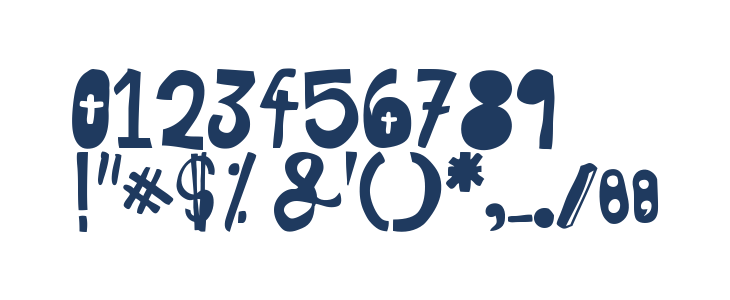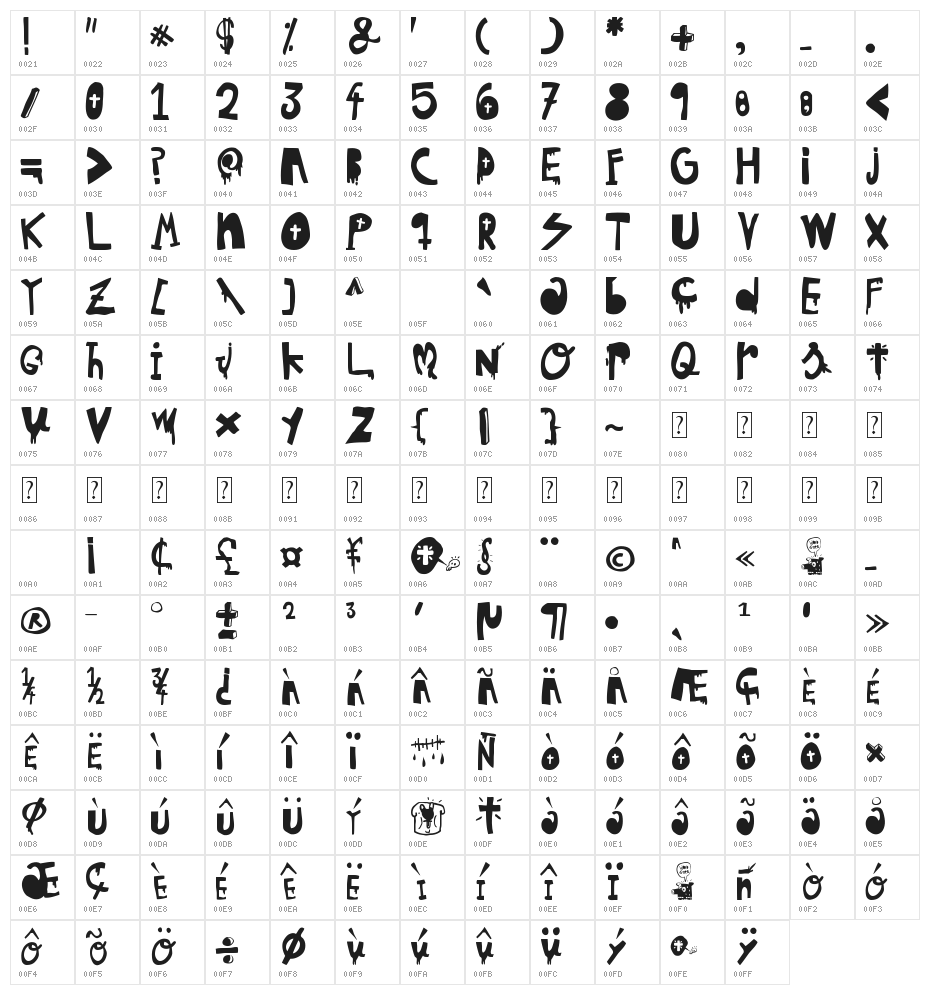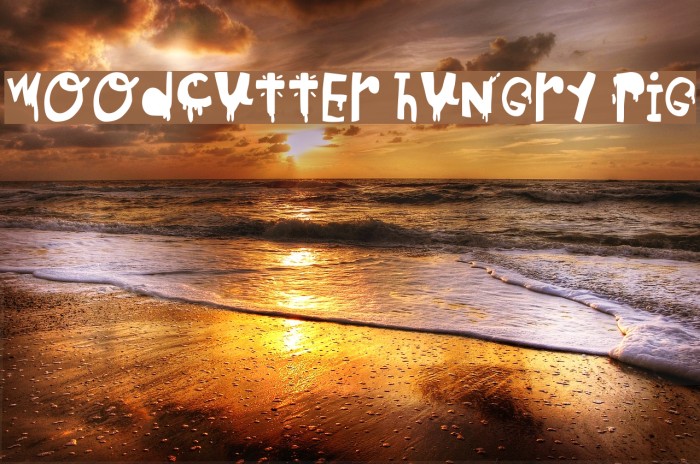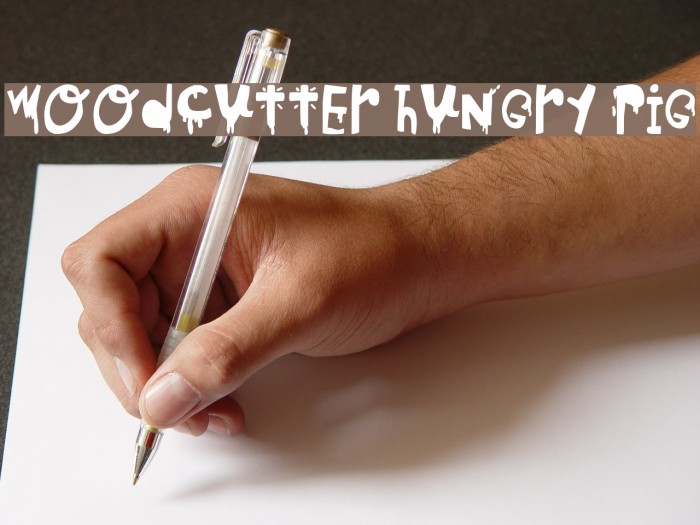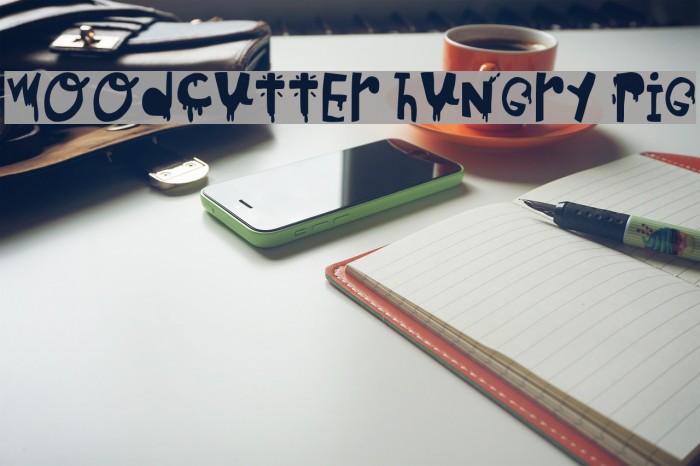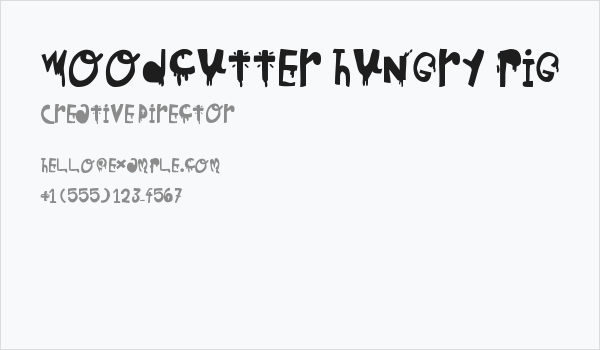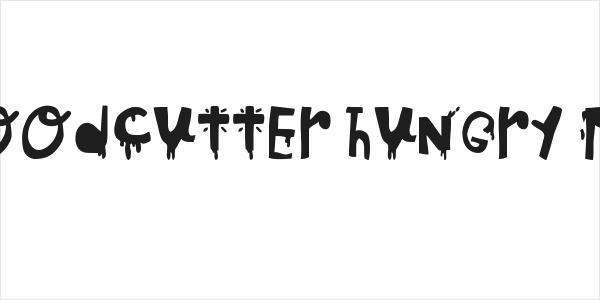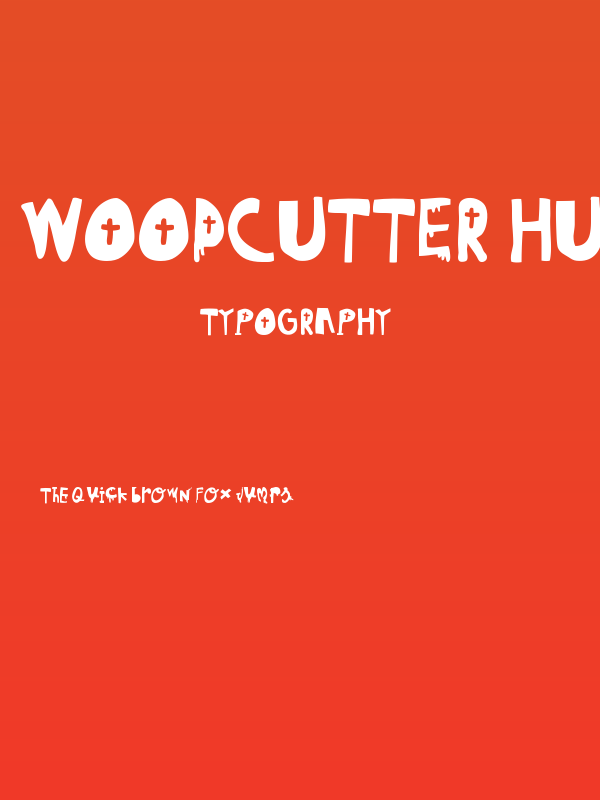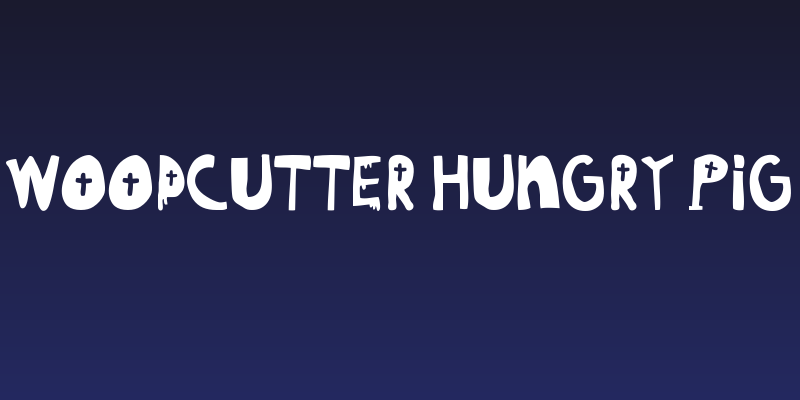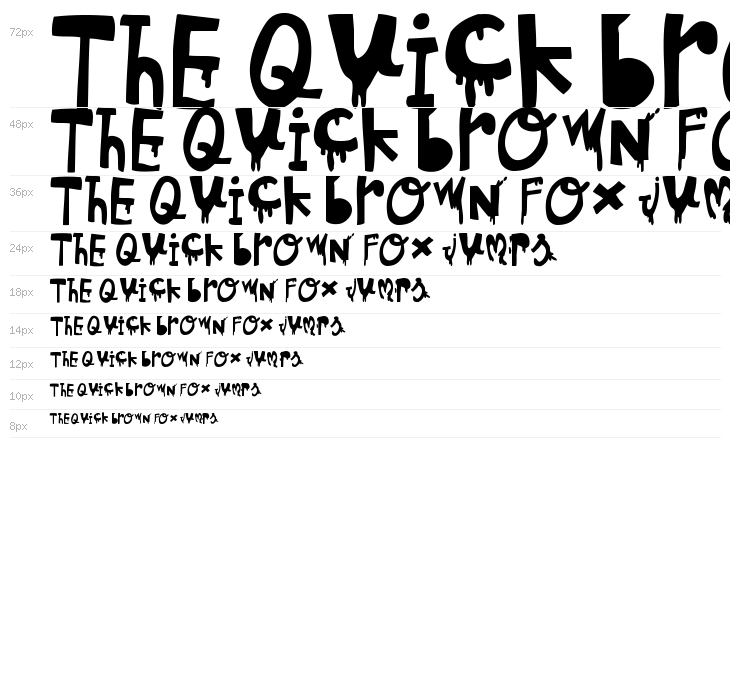
woodcutter hungry pig Font
woodcutter hungry pig Description
This font features a playful and quirky design with a distinctly bold and chunky appearance. The letters are characterized by irregular shapes and dripping elements, giving it a unique, almost spooky aesthetic. The uppercase and lowercase letters maintain a consistent style, with exaggerated curves and angles that add to its whimsical nature. The numbers and special characters follow the same playful theme, making it suitable for creative and unconventional projects. The overall look is reminiscent of a hand-drawn style, adding a personal and artistic touch.
Overall StylePlayful, Quirky, Spooky
Use CaseHeadlines, Posters, Creative Designs
Proposed ProjectsIdeal for Halloween-themed designs, children's book covers, playful posters, or any project requiring a fun and unconventional typeface.